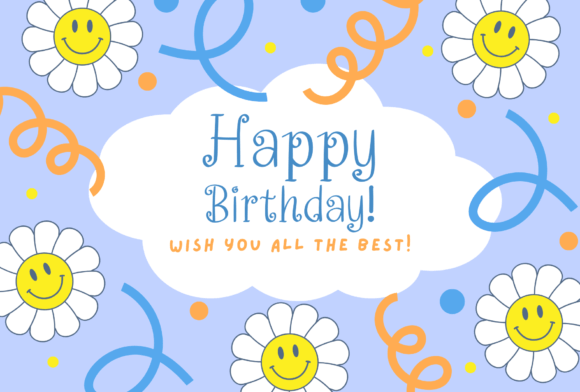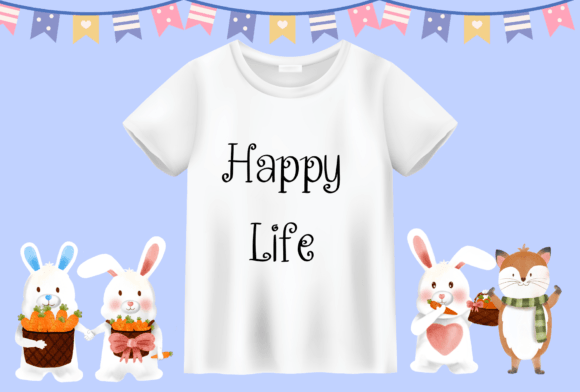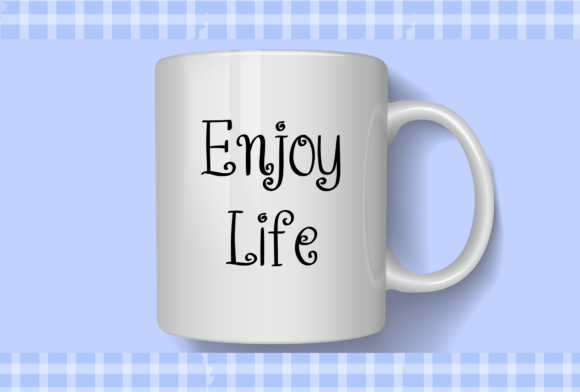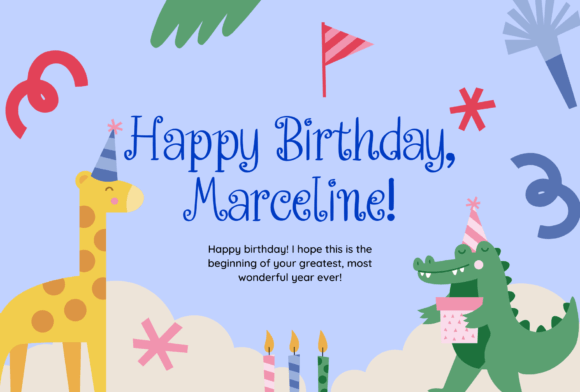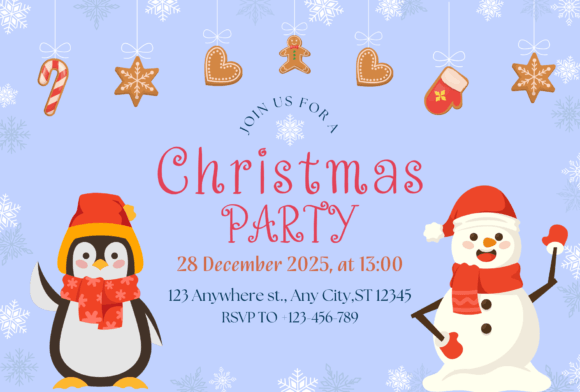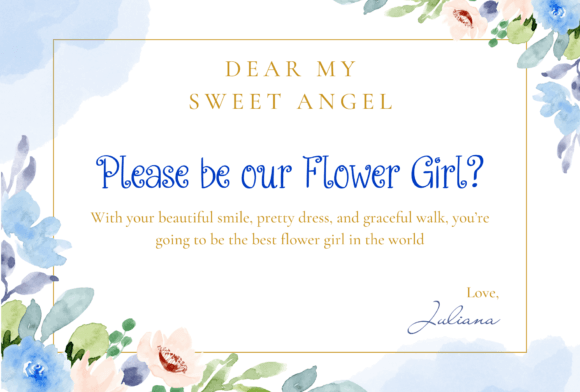
Cute Girl Font: Add a Touch of Whimsy to Your Designs
Are you looking for a font that exudes fun, joy, and playfulness? Look no further than the Cute Girl Font! This delightful handwritten font is perfect for designers and crafters who want to add a touch of whimsy to their projects. With its curl curves and charming aesthetic, Cute Girl Font is sure to bring a smile to your audience’s faces.
What is Cute Girl Font?
Cute Girl Font is a fun and joyful handwritten font that is defined by its curl curves. It’s a unique and eye-catching font that is perfect for fashion branding, editorial designs, and a wide range of creative projects. The font’s playful and carefree vibe makes it an excellent choice for designers who want to add a personal touch to their work.
Key Features of Cute Girl Font
- Curl Curves: The font’s defining feature is its curl curves, which give it a playful and whimsical feel.
- Handwritten Aesthetic: Cute Girl Font has a genuine handwritten look that adds a personal touch to your designs.
- Fashion Branding: The font is perfect for fashion branding, as it exudes a sense of fun and style.
- Editorial Designs: Cute Girl Font is also great for editorial designs, such as magazine covers, articles, and blog posts.
Why Use Cute Girl Font?
There are many reasons why you should consider using Cute Girl Font in your designs. Here are a few:
- Adds a Touch of Whimsy: The font’s playful aesthetic adds a touch of whimsy to your designs, making them more engaging and fun.
- Perfect for Fashion Branding: Cute Girl Font is an excellent choice for fashion branding, as it exudes a sense of style and sophistication.
- Easy to Read: Despite its playful aesthetic, Cute Girl Font is easy to read, making it perfect for body text and headings.
- Versatile: The font is versatile and can be used in a wide range of creative projects, from digital designs to print materials.
How to Use Cute Girl Font
Using Cute Girl Font is easy! Here are a few tips to get you started:
- Pair it with Other Fonts: Cute Girl Font pairs well with other fonts, such as sans-serif fonts and script fonts.
- Use it for Headings: The font is perfect for headings and titles, as it adds a touch of whimsy and playfulness.
- Add it to Your Branding: Consider adding Cute Girl Font to your branding, as it can help to create a consistent and recognizable visual identity.
In conclusion, Cute Girl Font is a fun and joyful handwritten font that is perfect for designers and crafters who want to add a touch of whimsy to their projects. With its curl curves and charming aesthetic, Cute Girl Font is sure to bring a smile to your audience’s faces. Whether you’re working on fashion branding, editorial designs, or a wide range of creative projects, Cute Girl Font is an excellent choice. So why not give it a try and see the results for yourself?